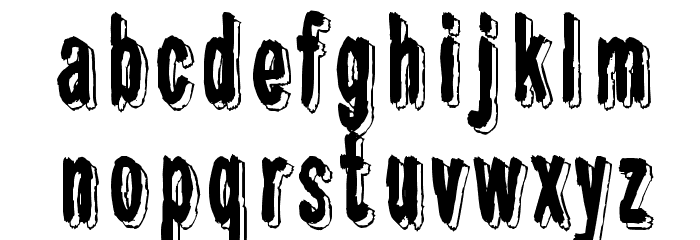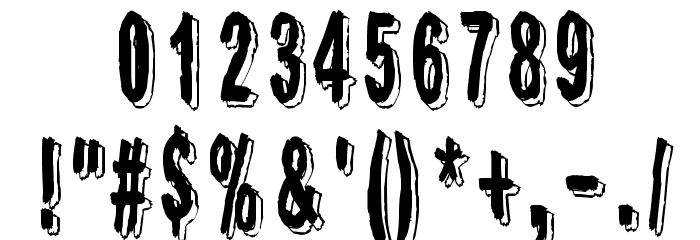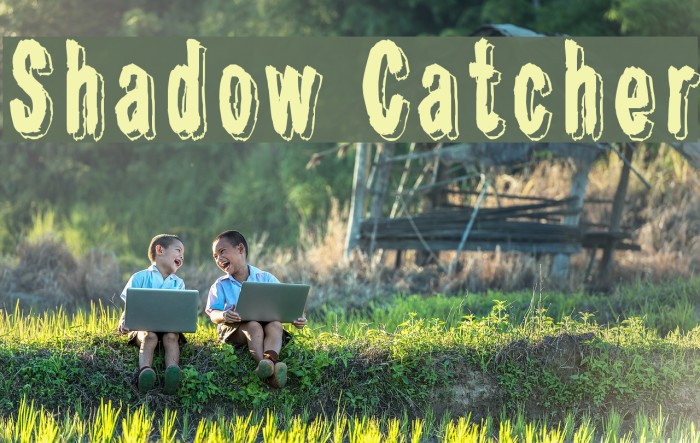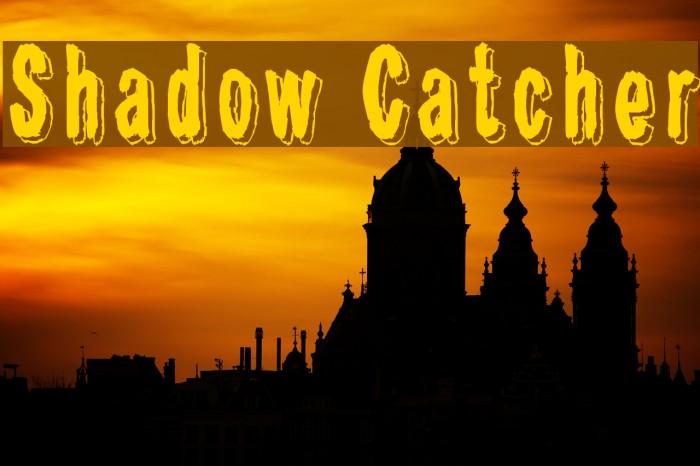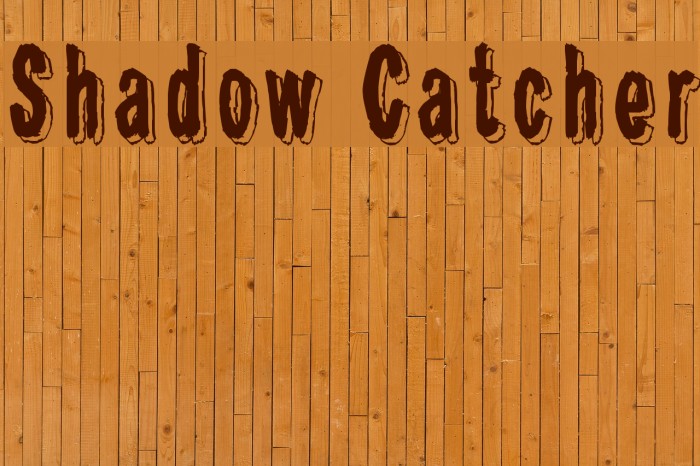
Shadow Catcher Font
This font features a bold, shadowed style that gives each character a three-dimensional appearance. The letters are uppercase and lowercase with a consistent thickness, creating a strong visual impact. The shadow effect adds depth and a playful touch, making it ideal for eye-catching designs. The numbers and special characters maintain the same bold and shadowed aesthetic, ensuring uniformity across all elements. This font is perfect for projects that require a dynamic and engaging look.
Bold, shadowed font with a three-dimensional effect.
- Proposed Projects: Ideal for posters, headlines, logos, and any design needing a bold statement.